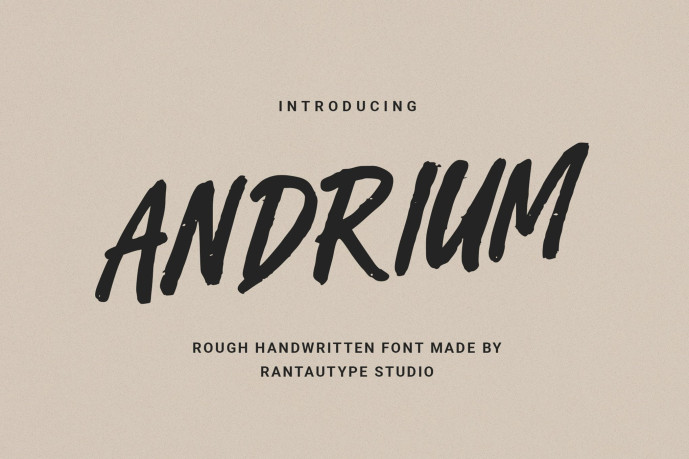
Andrium Rough Handwritten Font
Designer: RantautypeStudio
Andrium Rough Handwritten Font is rough font made by rantautype studio Inspired by spontaneous pen strokes and natural hand movement, this typeface embraces uneven baselines, textured edges, and irregular curves that make each character feel alive. Andrium bringing authenticity and human warmth into every letterform.
Andrium is a perfectly choice for any creative endeavor, creating, modern, lifestyle design such as logotype, title, cover, branding, invitations, wedding designs, display and magazine, social media posts, advertisements, printed quotes, product packaging, corporate brand, product designs, labels, photography, watermarks, special events and any other project with modern touch.